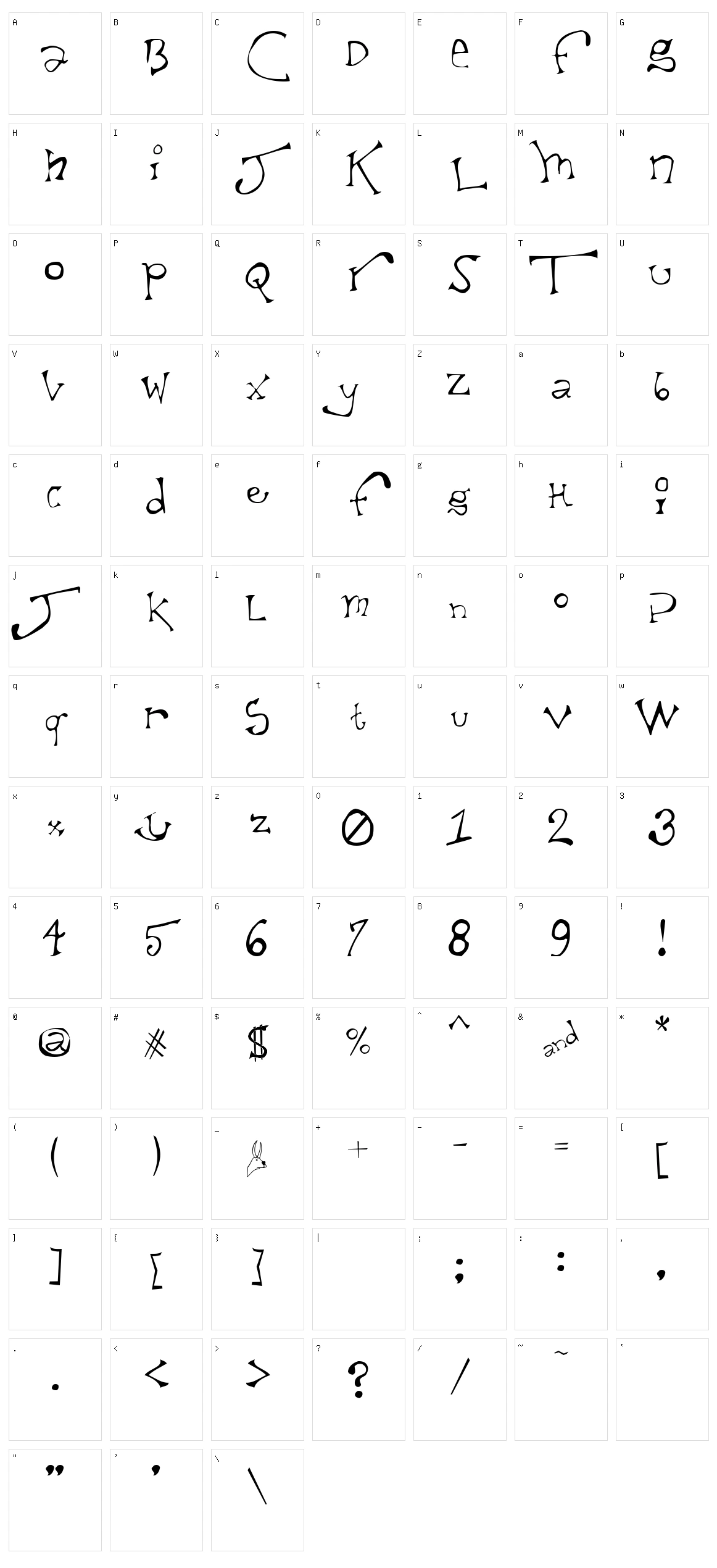
The free font Taxidermist is carefully designed by Disturbed Type, showcasing a thoughtful balance of creativity and usability and falls under the Cartoon font style. When you download the ZIP file, it contains only 19.87 KB of font files, making it lightweight and quick to download. Please review the license details below to understand permitted usage and distribution rights. If license information is not available, we recommend using this font for personal projects only or contacting the author directly for commercial usage permissions.
11.16.97 TAXIDERMIST